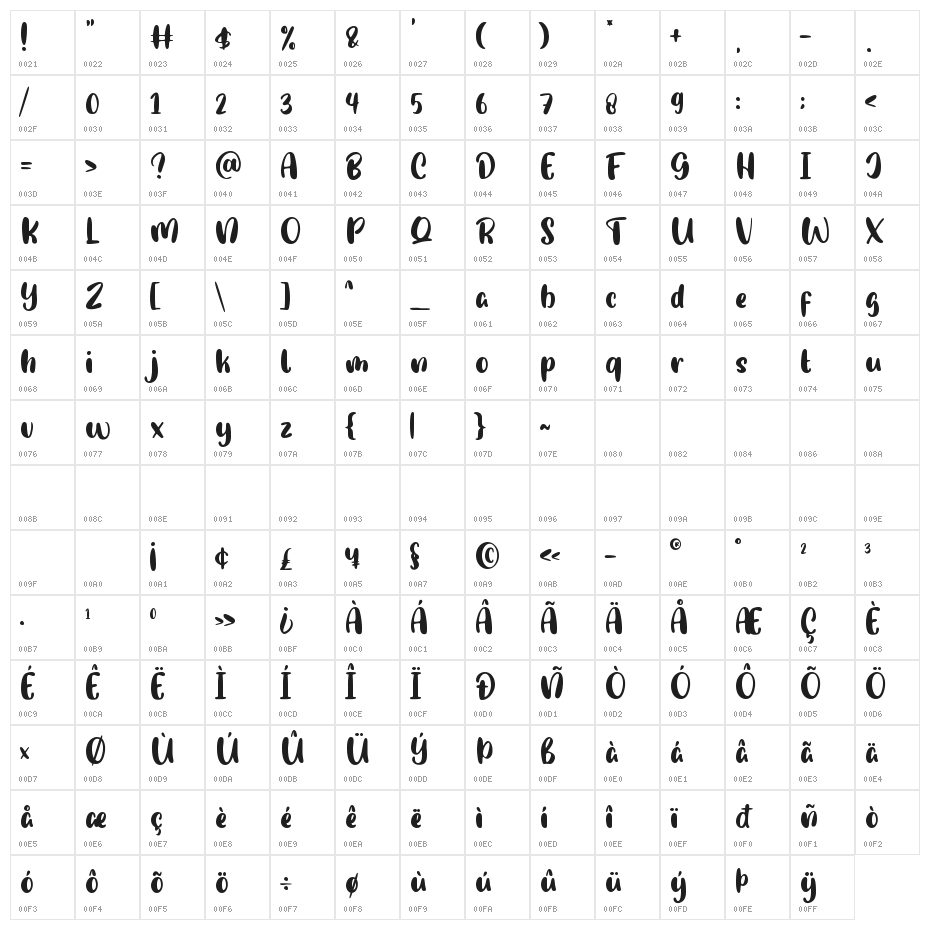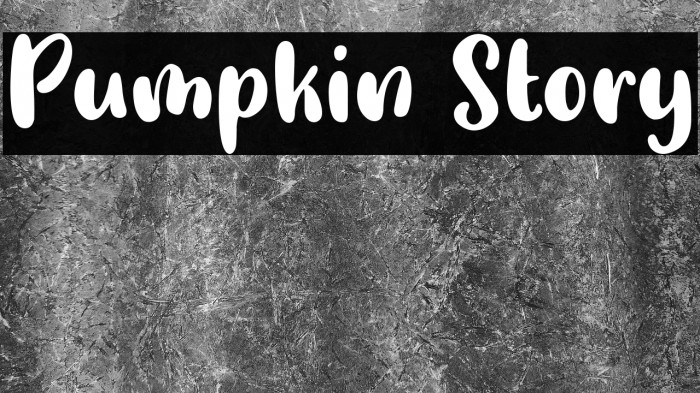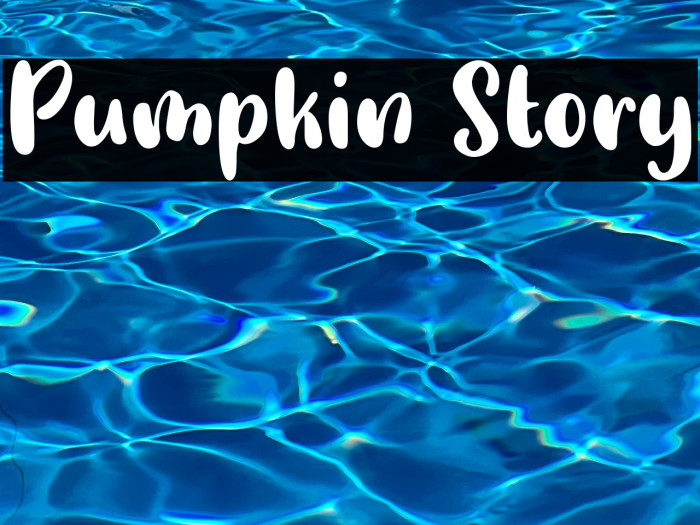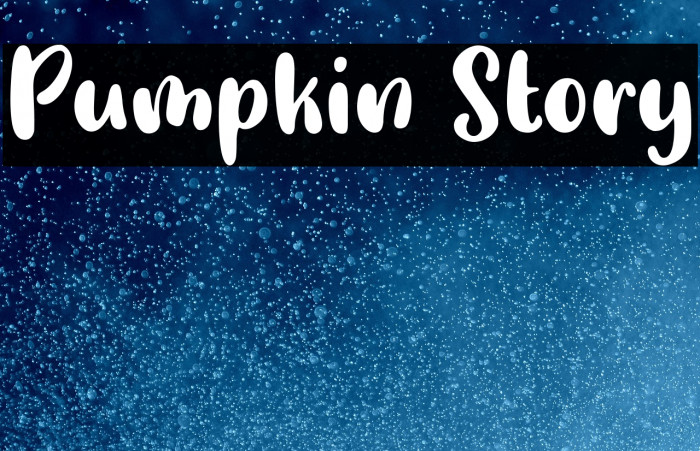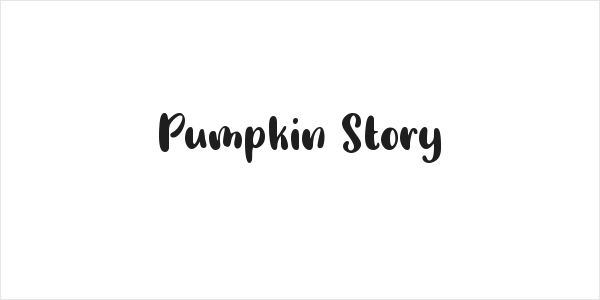
Pumpkin Story Font
Pumpkin Story Description
This playful and bold font features a handwritten style with a whimsical flair. The characters are rounded and full, giving a sense of warmth and friendliness. Each letter has a unique, slightly irregular shape that adds to its charm, making it ideal for creative and informal projects. The uppercase and lowercase letters maintain a consistent style, with smooth curves and a flowing appearance. The numbers and special characters are equally expressive, ensuring a cohesive look across all text elements. This font is perfect for projects that require a touch of personality and creativity.
Overall StylePlayful, Whimsical
Use CaseHeadlines, Logos, Creative projects
Proposed ProjectsIdeal for greeting cards, children's books, playful branding, and social media graphics.